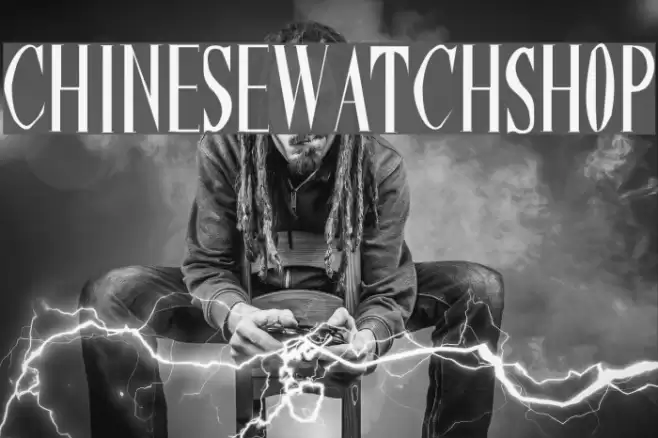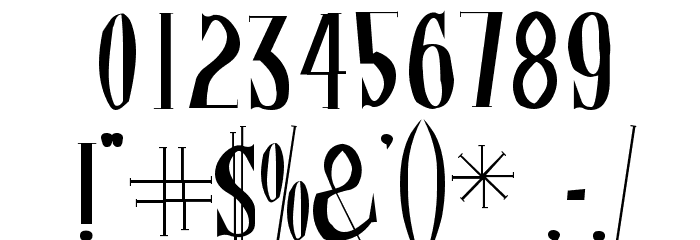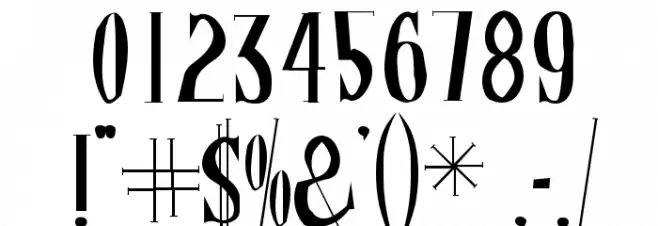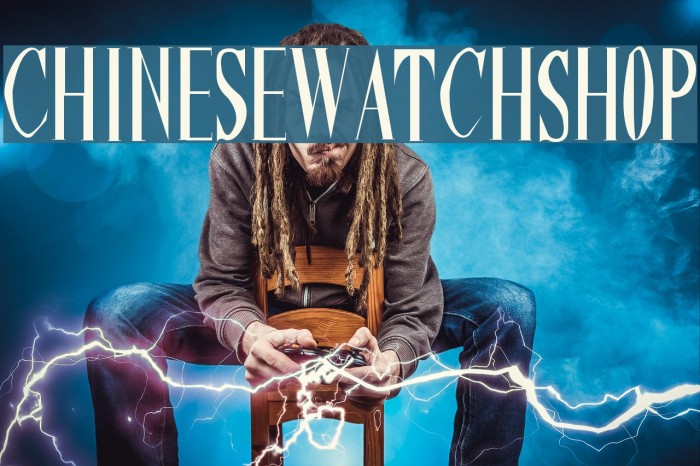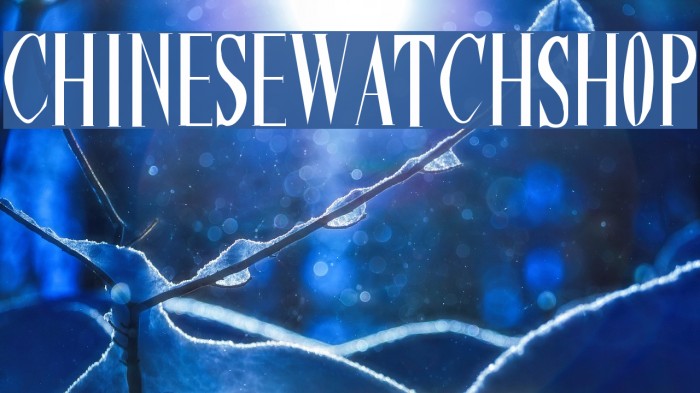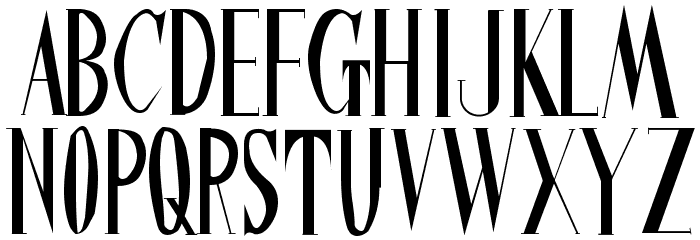
ChineseWatchShop Font
ChineseWatchShop Description
This font features a striking and elegant design with tall, narrow characters that exude a sense of sophistication and modernity. The uppercase letters are particularly elongated, with sharp, clean lines that create a sense of height and grandeur. The lowercase letters maintain this sleek aesthetic, offering a harmonious balance between the two cases. Numbers and special characters are designed with the same attention to detail, ensuring consistency throughout. The font's high contrast between thick and thin strokes adds to its dramatic appearance, making it ideal for attention-grabbing headlines and titles.
A tall, narrow font with high contrast and elegant, modern design from Distorted Eroded fonts.
- Proposed Projects: Ideal for luxury branding, fashion magazines, high-end product packaging, and elegant invitations.
- Character Spacing: Tight